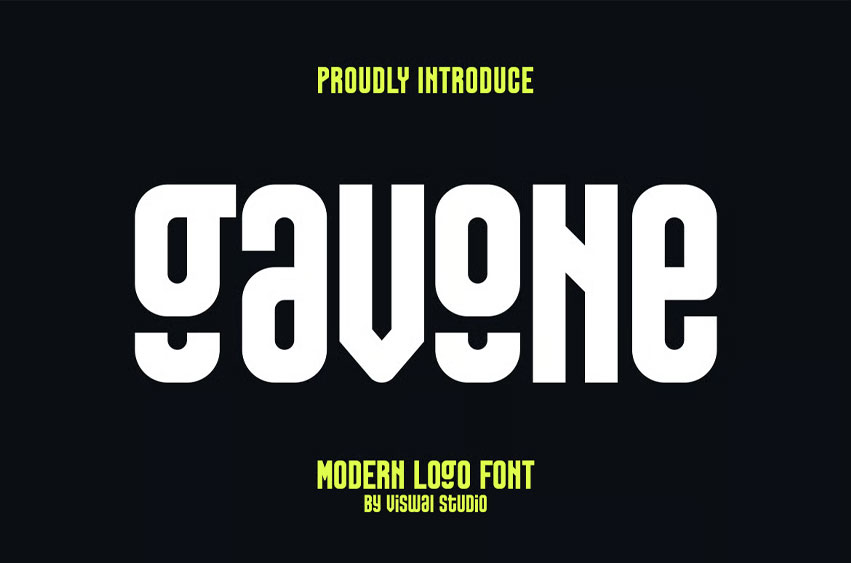
Gavone Font Is A Modern Corporate Logo Font. Can Make It Easier To Convey The Message In Your Design. Font Is Suitable For Logo, Labels, Badge, Branding, Magazine, Poster, Title, Gigs, Covers And Etc.